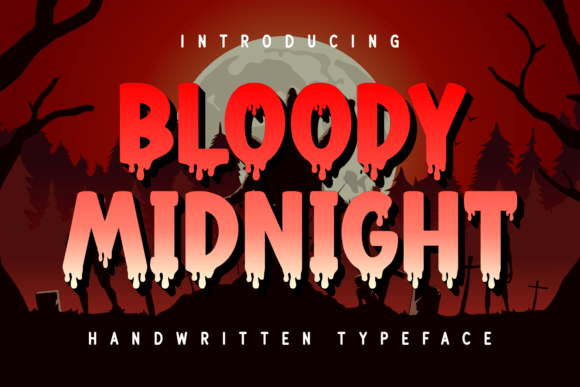
Feast your eyes on Bloody Midnight, the spine-chilling display font guaranteed to cast a spellbinding aura over your Halloween and horror-inspired creations. Let the ghoulish charm of this font transport you to a realm of eerie elegance, sending shivers down the spines of your audience.
Immerse yourself in the mysterious allure of Bloody Midnight, a font that oozes sophistication and spookiness in equal measure. Each letter dances across the page like a phantom, conjuring up images of haunted houses, eerie graveyards, and spine-tingling tales that ignite the imagination.
With Bloody Midnight, you possess the power to transform ordinary designs into captivating masterpieces that evoke a sense of wonder and fear. Design chilling posters that scream Halloween, create unsettling invitations that promise an unforgettable night of terror, or craft haunting social media graphics that will leave a lasting impression.
Unleash your creativity and watch as Bloody Midnight breathes life into your darkest visions. Let its elegant curves and sharp edges capture the essence of the supernatural, captivating your audience from the very first glance. This font is not just a collection of letters; it's an incantation that weaves a web of enchantment around your designs.
Don't let your designs be mundane and predictable; ignite them with the otherworldly charm of Bloody Midnight. This font is the key to unlocking a realm of endless possibilities, where your imagination can run wild and your creativity can flourish.
Step into the realm of the macabre and let Bloody Midnight be your guiding light. Allow its eerie beauty to cast a spell on your designs, leaving your audience spellbound and eagerly anticipating your next creation.